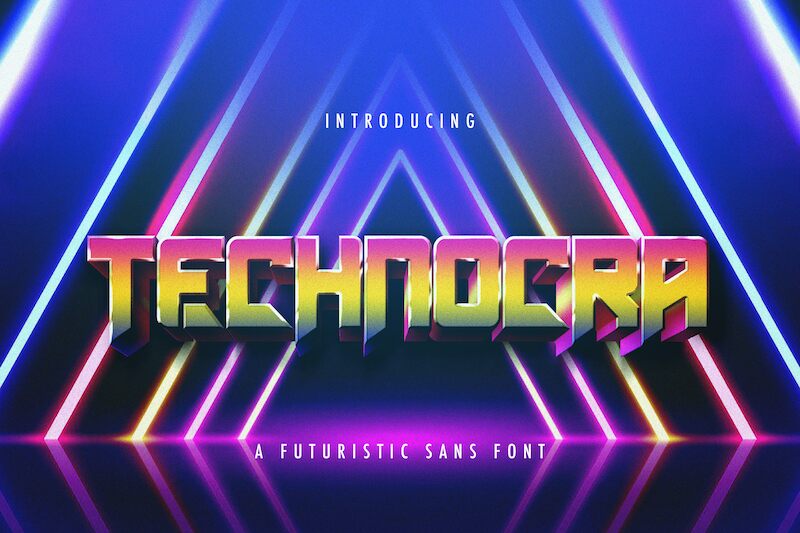
Technocra
Technocra is a bold and futuristic font designed by StringLabs Creative Studio. With its clean lines and sharp edges, this display font is perfect for projects that require a modern and innovative touch. From tech startups to fashion brands, Technocra's striking presence will make your designs stand out. Its bold weight adds emphasis and makes it ideal for headlines, titles, logos, and branding materials. Whether you're designing a website or creating marketing materials, Technocra will add a unique flair to your project that is sure to impress. Try it today!